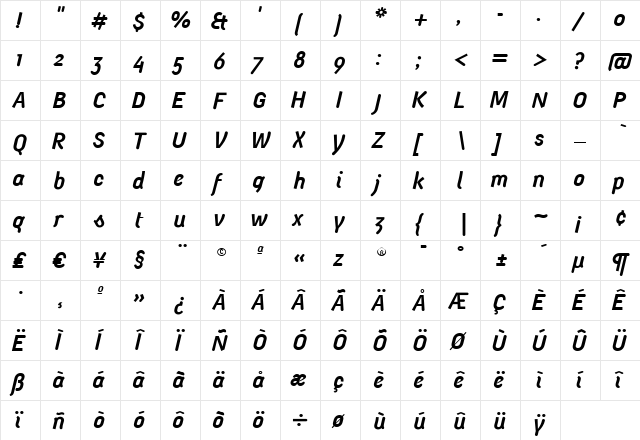
SGIAltExB Regular
| Foundry | Joseph Stitzlein |
Design Context for SGIAltExB Typeface
SGIAltExB offers clean, dependable letterforms without strong stylistic allegiance, making it a practical choice for designers who need flexibility.